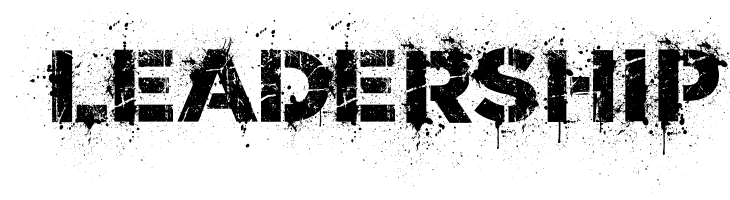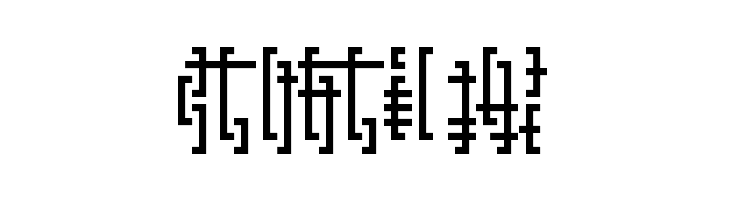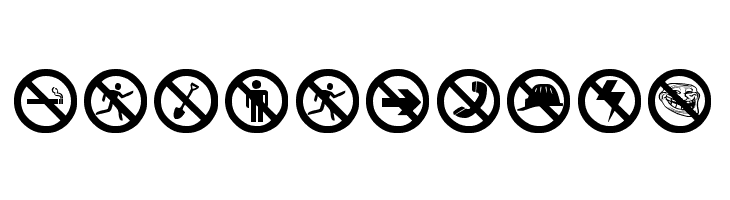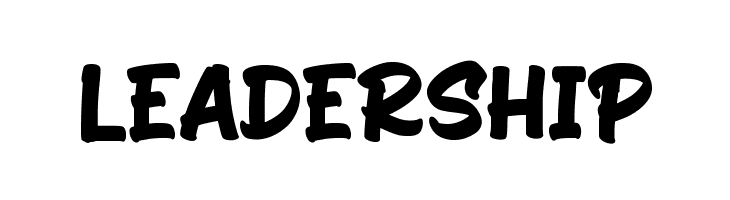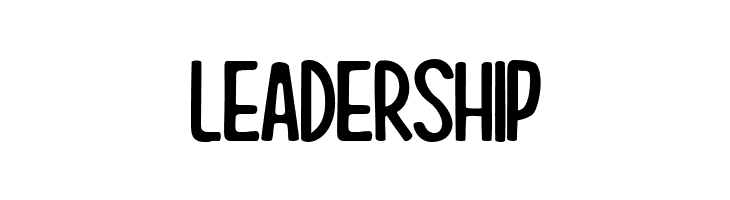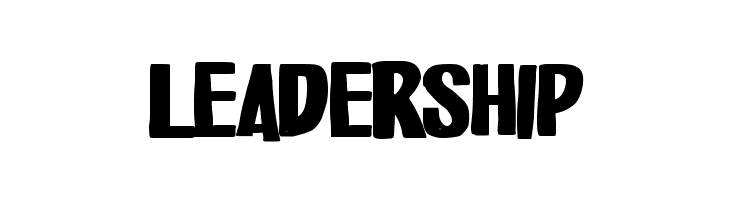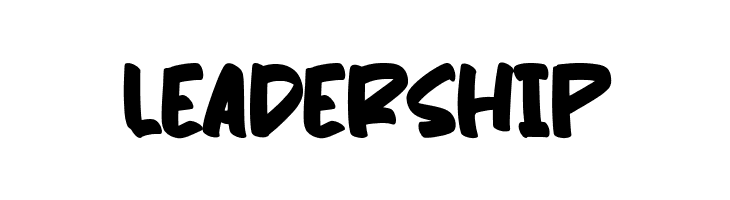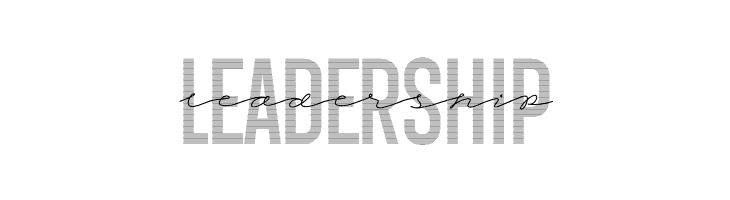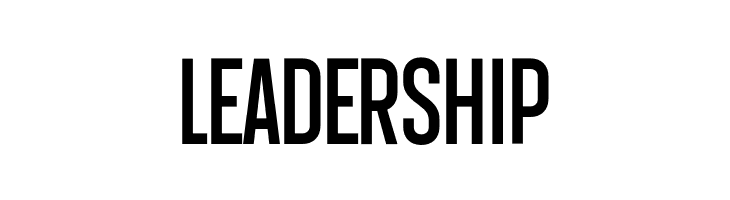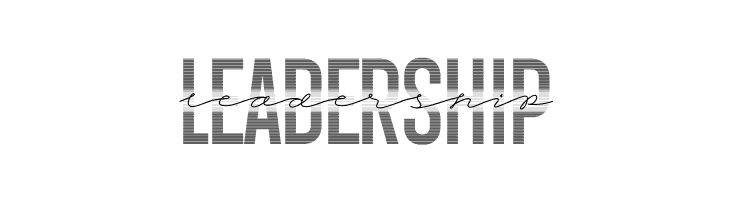
A whimsical and decorative font with playful curves and charming details.
A bold, abstract font with geometric patterns and bracket-like enclosures.
A bold, decorative font with a 3D effect created by diagonal lines.
A bold, brush-style font with a hand-painted, artistic appearance.
A dynamic and elegant script font with fluid, connected strokes.
A bold, playful font with geometric elements and unique character designs.
A modern, geometric sans-serif font with clean lines and uniform stroke width.
A bold, modern sans-serif font with strong, uniform strokes.
A bold, modern sans-serif typeface with strong, thick strokes.
A clean, modern sans-serif font with an extra light weight, perfect for minimalist designs.
A clean, modern sans-serif font with a light weight and excellent legibility.
A modern, clean sans-serif font with geometric shapes and uniform strokes.
A modern, clean sans-serif font with balanced spacing and consistent stroke width.
A modern, semi-bold sans-serif font with excellent legibility and balance.
A clean, minimalist font with thin strokes and modern aesthetics.
Bold, decorative handwritten script with flowing, connected strokes.
Playful handwritten script font.
A bold, hand-drawn font with a playful and robust style.
A bold sans-serif font with an elegant cursive script overlay, offering a modern yet personal style.
A bold, modern font with a gradient effect and cursive lowercase letters.
A bold, modern sans-serif font with clean lines and strong readability.
A bold sans-serif uppercase paired with elegant cursive lowercase, offering a modern and versatile style.
A set of bold, high-contrast safety and warning symbols for clear communication.
A playful, rounded font with a bold and friendly appearance.
A bold, playful handwritten font with thick, rounded strokes.
A dynamic, cursive font with fluid connections and an energetic feel.
A slanted, cursive font with elegant curves and a sophisticated style.
A bold, playful font with rounded edges and a bubbly appearance.
A bold, playful font with a unique shadow effect and rounded, irregular characters.
Bold geometric sans-serif with clean lines and modern appeal.
A playful, 3D hand-drawn font with a bold, cartoonish style.
A bold, distressed font with a gritty, splattered appearance.